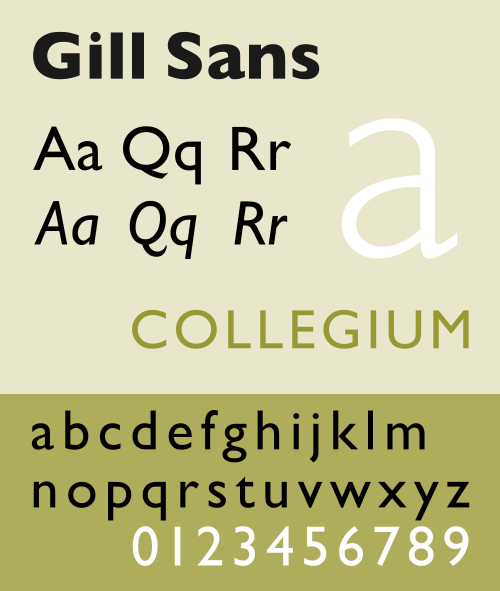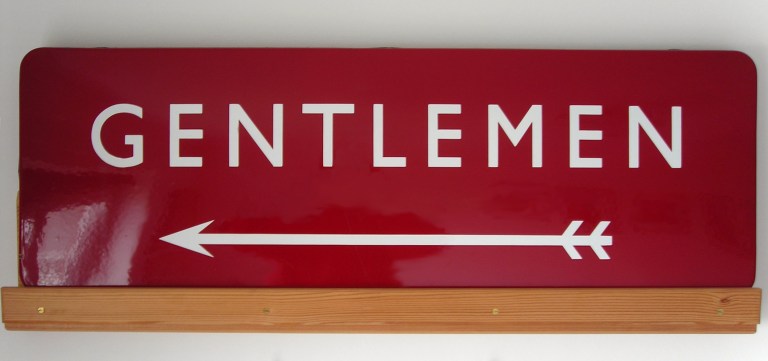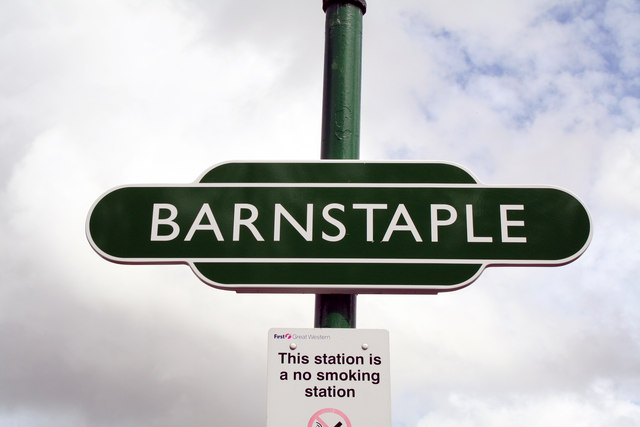
The Font of All Knowledge (Gill Sans and British Railways signage)
Can there be a more seductive font in the realm of public transport than Gill Sans? While the response of most people when asked to think about a font used in transport will be to mention “the Underground signs” (Johnston, and latterly New Johnston on London’s Underground and other transport modes), it is Gill Sans which has had far wider use by transport operators. It possesses a chilly haughtiness and inspires fascination and devotion. It is the ice maiden of transport fonts, beautiful but hard to work with. Despite the difficulties of using it, transport operators are compelled to return it again and again.
Gill Sans was invented by Eric Gill in 1926, and released commercially two years after that. Gill was a bit of an odd chap and some of his personal predilections aren’t suitable for a blog like this (so much so that there is occasional discussion of boycotting Gill Sans)¹…so let’s gloss over Gill himself and instead mention that the font’s first transport use was its adoption by the London & North Eastern Railway in 1929 as its official typeface for publicity and posters, later appearing on trains themselves. Then Gill Sans really spread its wings, because at nationalisation in 1948  it was adopted by the British Railways Board for its station signage, rolling stock lettering, timetables and publicity.
Its use on British Railways signage, particularly the famous station “totems” (or “hot dog sausage signs” as they are unkindly referred to by philistines) arguably remains its best ever deployment, the typeface and the sign design working perfectly together (though the version on the signs is apparently fractionally different than standard Gill Sans, but not so much that anyone but a font enthusiast would notice; I certainly can’t spot the difference). This perfect marriage of font and sign design is why there’s a massive market in expensive bespoke replica station totems, and virtually no market in replica 1965-and-later station signs. It’s also why there’s such a thriving auction business for the original totems and other station signage.
The British Railways station signs worked so well because Gill Sans is a very dictatorial font, ordering you about in a no-nonsense way. As such, the signs were perfectly suited to the post-war period in Britain, the last time that men in bowler hats were in charge of everything, before the 1960s came along and the whole structure of society was blown apart.  How reassuring it must have been for a train traveller of the 1950s to know that when arriving at Barnstaple, or looking for the Way Out, they could be in no doubt at all that they were indisputably at Barnstaple, or the Way Out would be precisely where indicated. And this was despite the fact (here comes one of the main reasons that I say Gill Sans is hard to work with) that the lower case ‘l’, upper case ‘I’ and numeral ‘1’ all looked identical. In fact it was probably because of it. The men in bowler hats expected you to bring a certain degree of intellectual application to the task at hand and certainly weren’t in the business of spoon-feeding you their instructions.
The station totems and other signage came in a variety of colours. The Great Western Region got brown (of course), the Midland Region got maroon (just like its pre-nationalisation locomotives), the North Eastern got orange (go figure – does anyone else know why?), Scotland got light (Caledonian) blue, the Southern Region retained its traditional dark green, but my personal favourite was the Eastern Region, which got dark blue, based again on a local traditional locomotive livery. A clean Eastern Region sign, glistening in the sun, was a mesmerising combination of white, take-no-prisoners, Gill Sans seriousness overlaid on the sultry ultramarine of shimmering Bristol blue glass.
And those arrows! They’re not strictly part of the font, designed instead by British Railways to accompany Gill Sans on the signs, but those arrows are just wonderful. Used on the wayfinding station signs, there’s no messing about with them. They mean what they say. I am an arrow, the design tells observers, that will do you serious damage if you dare disobey me. I’m sure that the modern directional arrows on station signage are clearer and easier to follow for a wider range of passengers, but they have nothing on the icy poise of the arrows on British Railways station signage. They even have flights! Go where I tell you, they say. Or else.
British Railways "Gentlemen" directional sign. Now in a private collection. Am I jealous? Just a bit...
The design guide for the signage and the arrows has been posted on flickr for those who want to revel in the full beauty and discover the ratios of the various elements of the arrow. I can recommend it.
The end came for the Gill Sans/British Railways signage combination in 1965 when BR’s new corporate identity (the one with the double arrow) was rolled out, with black “Rail Alphabet” font on white background for station signage. Rail Alphabet was subsequently also adopted by the National Health Service in England and Wales for use in hospitals, creating for many a quite discomfiting emotional response to the font when subsequently encountered on a railway journey.
But although it was supposed to have been swept away by Rail Alphabet, transport operators can’t keep away from Gill Sans. It calls to them like a siren. When British Rail was privatised in 1994, the infrastructure owner/operator Railtrack adopted the font as its corporate typeface. Press releases and Annual Reports (in the style of classic railway posters, perhaps an entry for another time) would be published in Gill Sans, and of course being in Gill Sans they appeared utterly authoritative, even if Railtrack’s legacy is now seen as being far from that. I can remember Railtrack press releases rattling off the fax machine at the transport magazine where I worked at the time, and always loving the font, even though it had been mangled in transmission down a phone line. Railfreight operator EWS used Gill Sans on its rolling stock, and passenger train operator East Coast used it on a specially branded “Flying Scotsman” train in 2011.
It won’t be long before some other transport company uses Gill Sans again. They just can’t help themselves. We all want to impress an ice maiden.
¹This entry, and the bit about Gill in particular, couldn’t have been written without “Just my Type” by Simon Garfield (published 2010 by Profile Books), an excellent book about fonts and their histories.
As a correction I believe the Eastern Region dark blue was inherited from LNER practice, rather than honouring GER locomotive livery. The LNER also used dark blue for its road vehicle fleet.
The LNER lozenge logo was a wonderful use of Gill Sans.
I have a vague idea that NE region orange came from former NER practice but I’m not at all sure.
Gill Sans was also, of course, used by other BTC operations.
London Transport sometimes used it instead of Johnston, but not sure why.
Was your reference to the “Great Western Region” deliberate or an error?